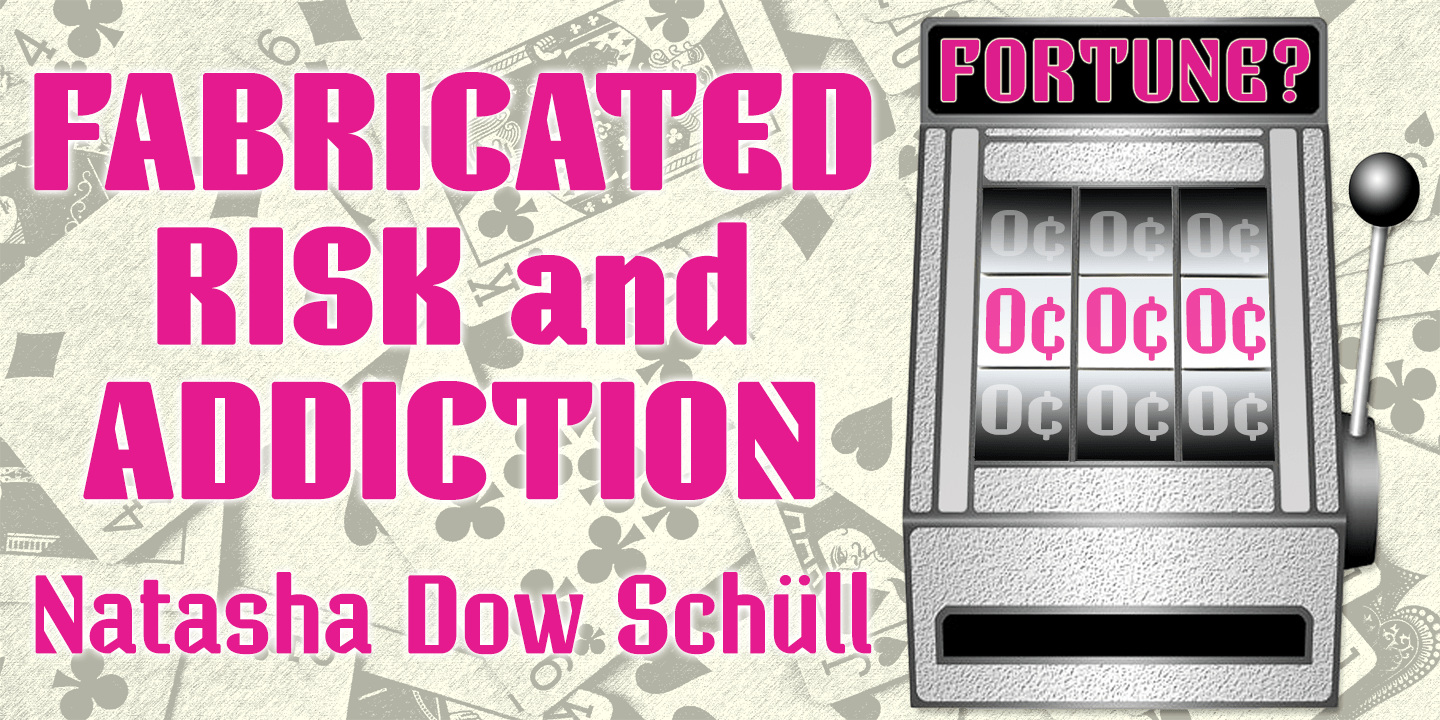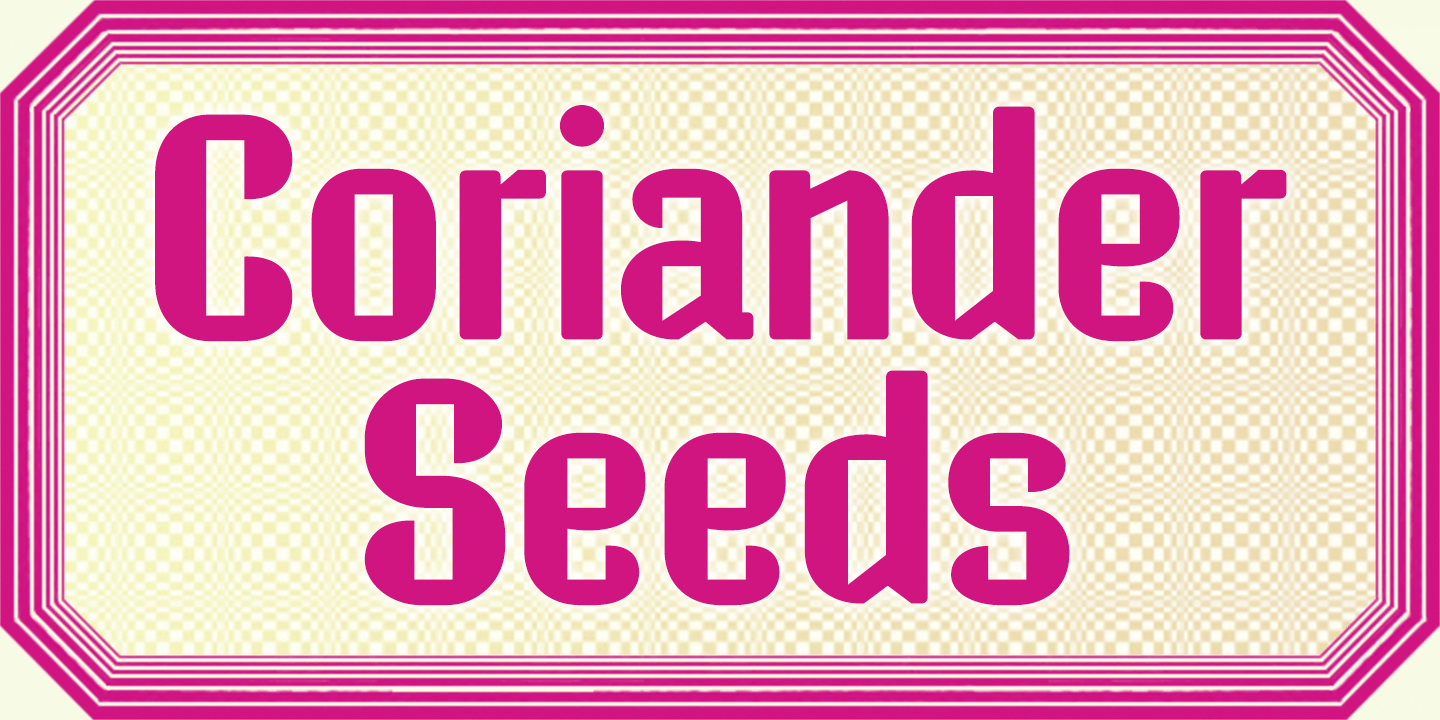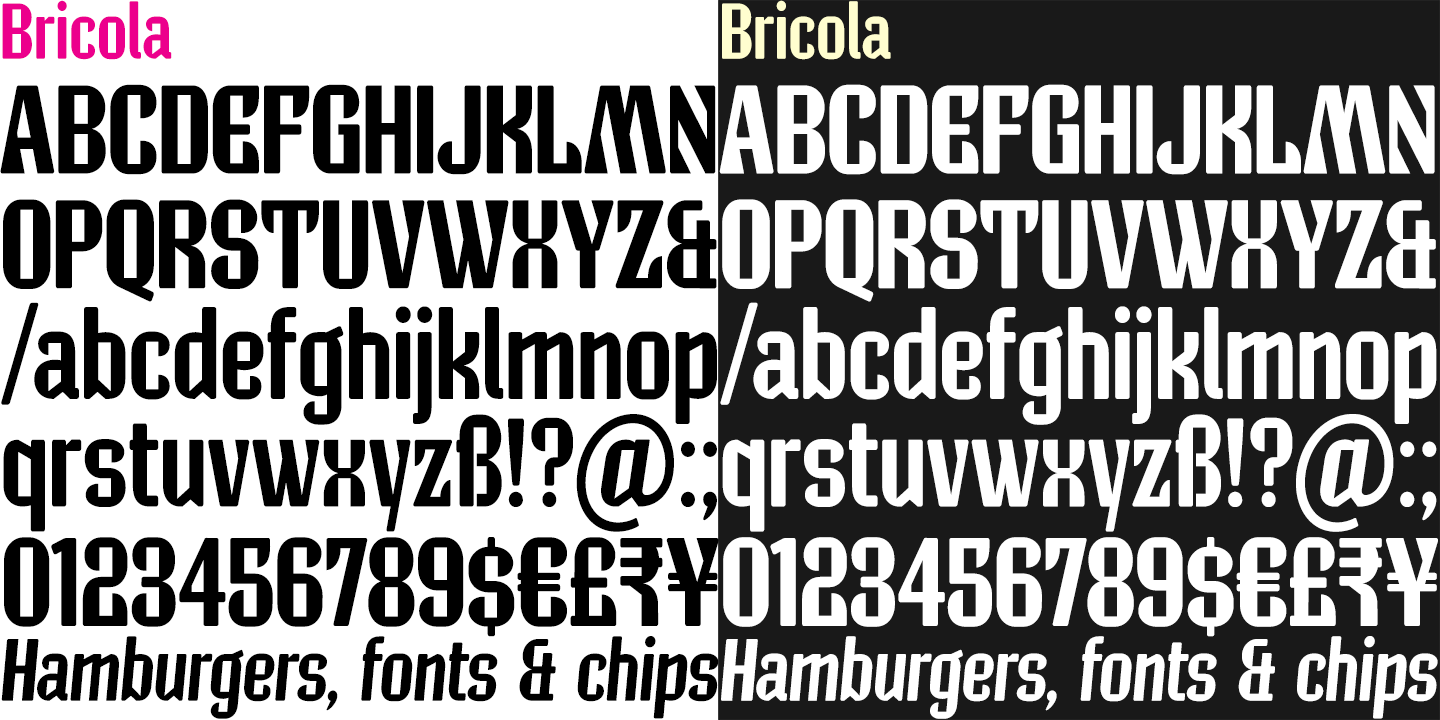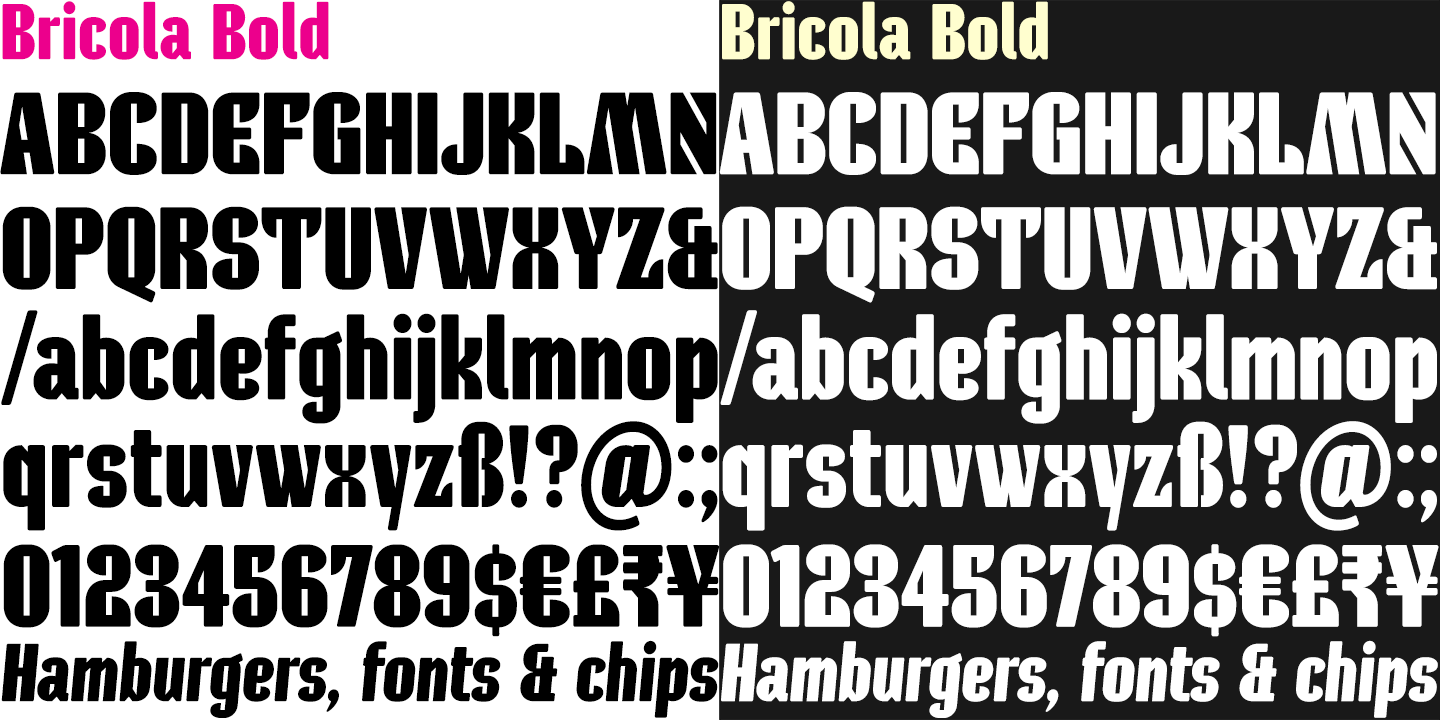
Bricola
Font Family by K-Type
Bricola (rhymes with Nicola) is a condensed display face that contrasts soft curved outlines with sharp cuts and counters.
Sturdy and idiosyncratic, Bricola is an eye-catching blend of functional and funky, appropriate for headlines, labels and branding.